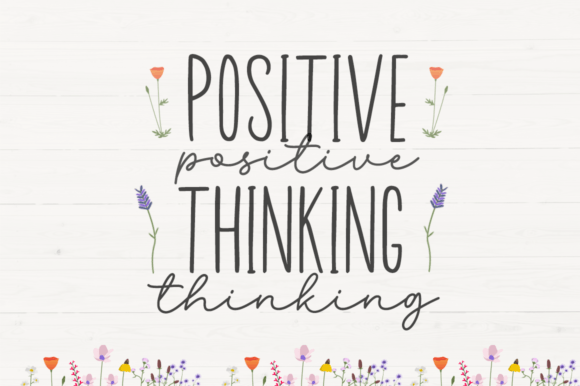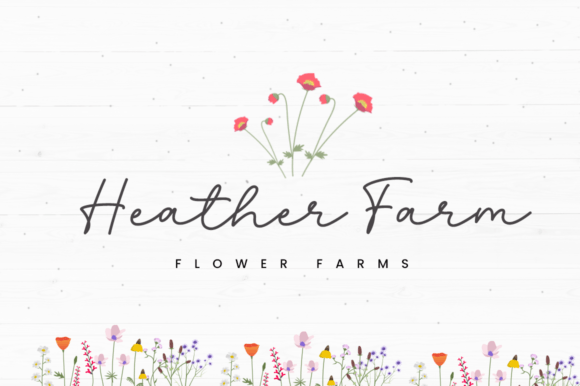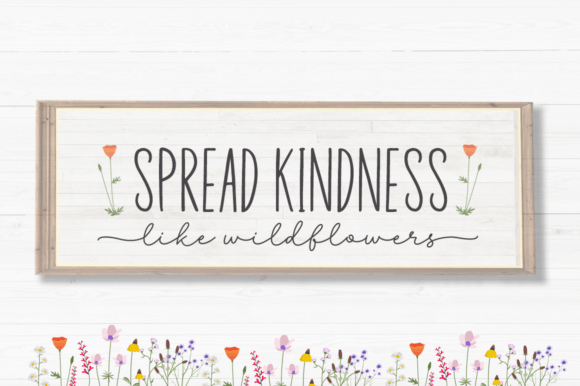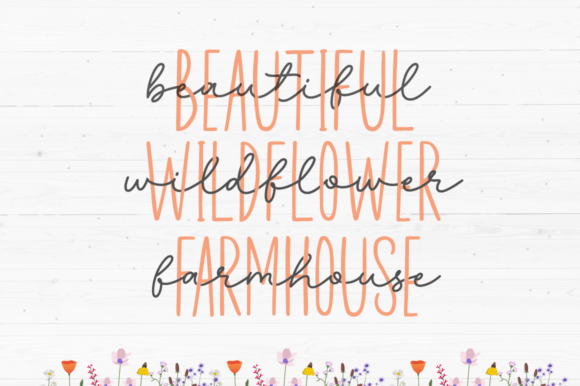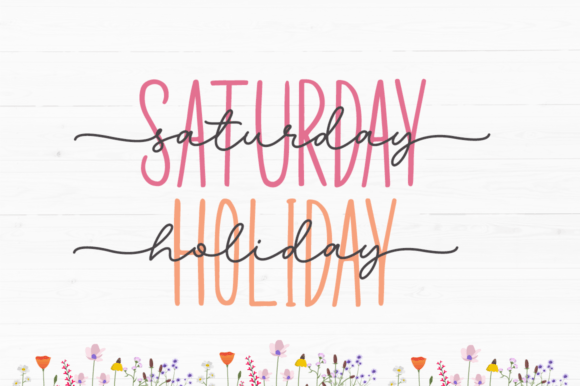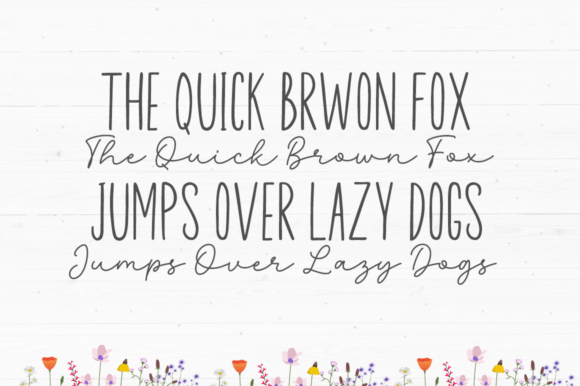
Adding a Touch of Whimsy to Your Creations
There’s something magical about discovering a new font that perfectly captures the essence of a project. For many of us, it’s that moment when the words start flowing, and our imagination takes over. Whether you’re designing a wedding invitation, a birthday card, or a DIY craft, the right font can make all the difference. That’s why I’m excited to share with you the Beautiful Wildflower Duo Font, a stunning pair of fonts designed to complement each other beautifully.
Together, these two fonts bring a cheerful touch to any project, and with the PUA code, you can access all the glyphs and swashes easily. As a designer, you know how valuable it is to have a versatile font that can adapt to different styles and moods. The Beautiful Wildflower Duo Font is perfect for adding a playful, yet elegant touch to your crafts, making it a must-have for any creative project.
- Unique Characteristics: Hand-drawn and hand-painted design elements, giving the fonts a whimsical and organic feel, perfect for creating a natural and earthy atmosphere.
Designer Review: Beautiful Wildflower Duo Font
Overall, I’m quite impressed with the Beautiful Wildflower Duo Font. ✨ The font’s floral elements and natural theme make it perfect for any project that needs a touch of whimsy and elegance. The combination of script and sans-serif fonts creates a beautiful contrast that adds depth to any design. ✨ The font is also highly customizable, allowing designers to adjust the size, color, and spacing to fit their project’s needs.
However, there are some limitations to consider. ⚠️ The font’s design can be quite busy, which may make it difficult to read in certain contexts. Additionally, the script font can be quite ornate, which may not be suitable for projects that require a more straightforward or modern look. ⚠️ Furthermore, the font’s compatibility with certain software or platforms may be limited, which could be a concern for designers working on large-scale projects.